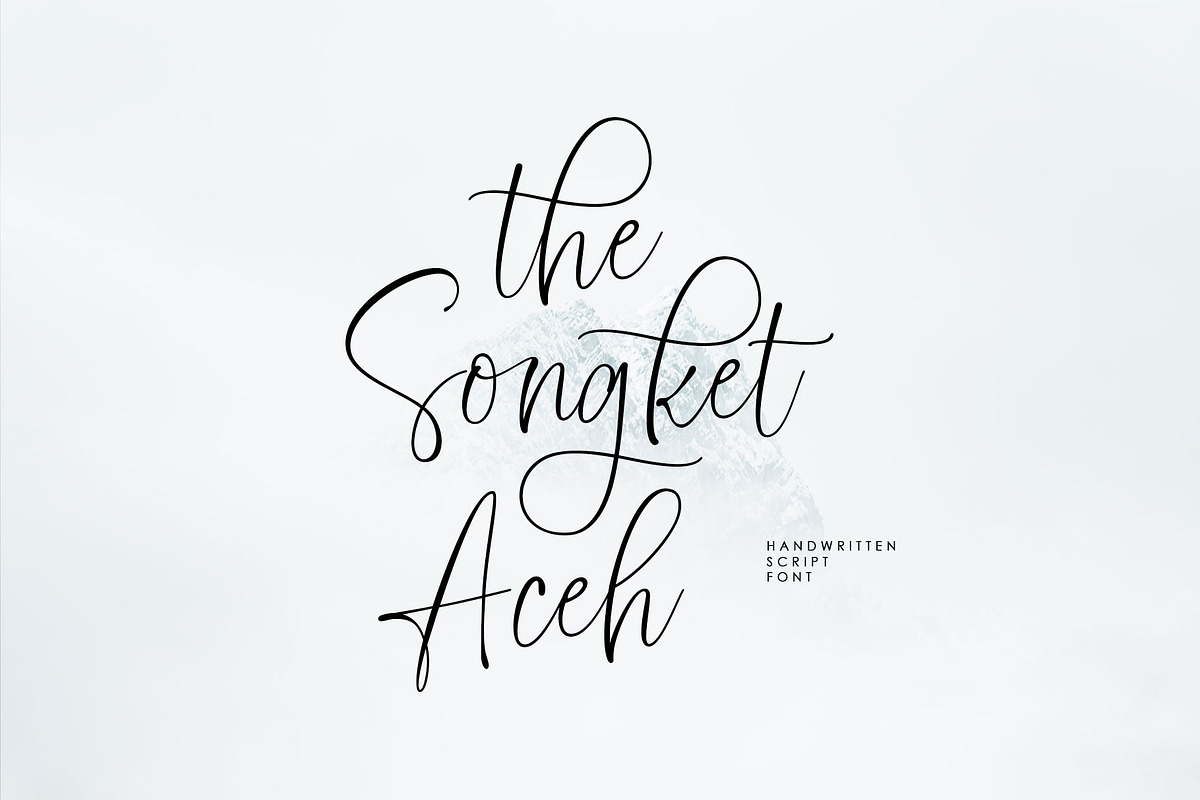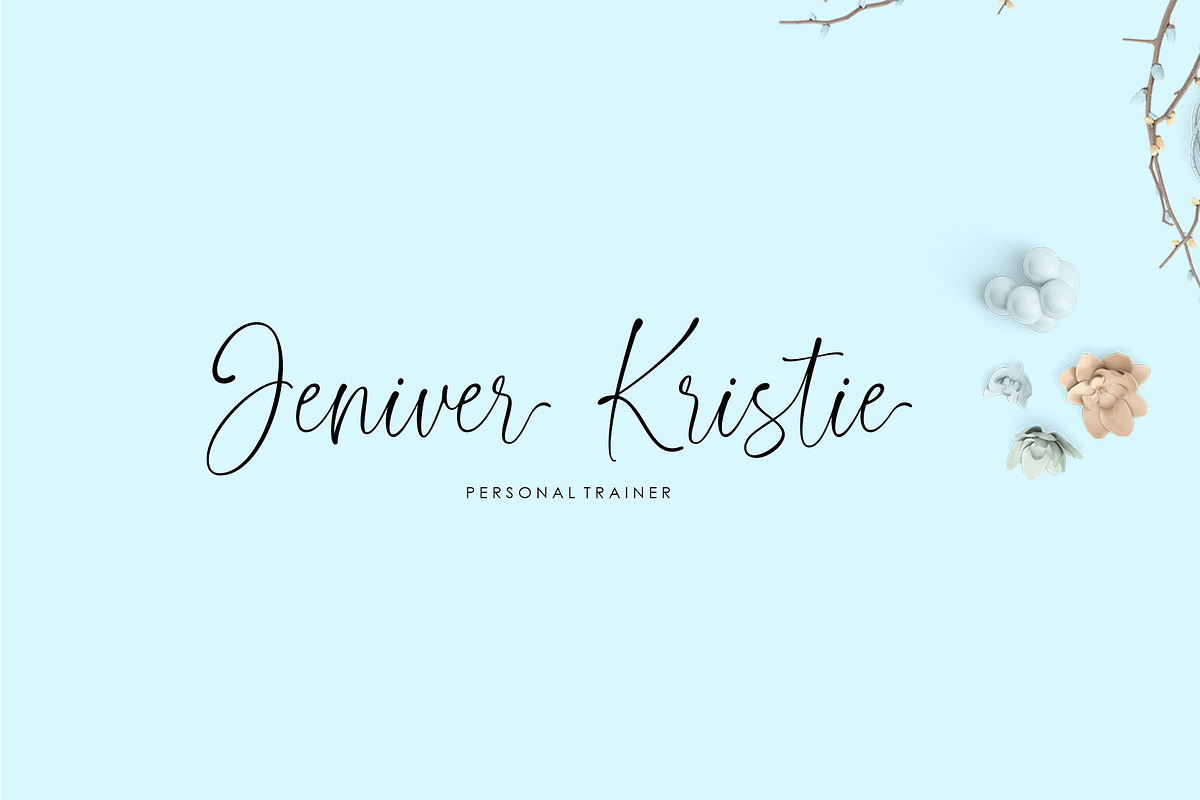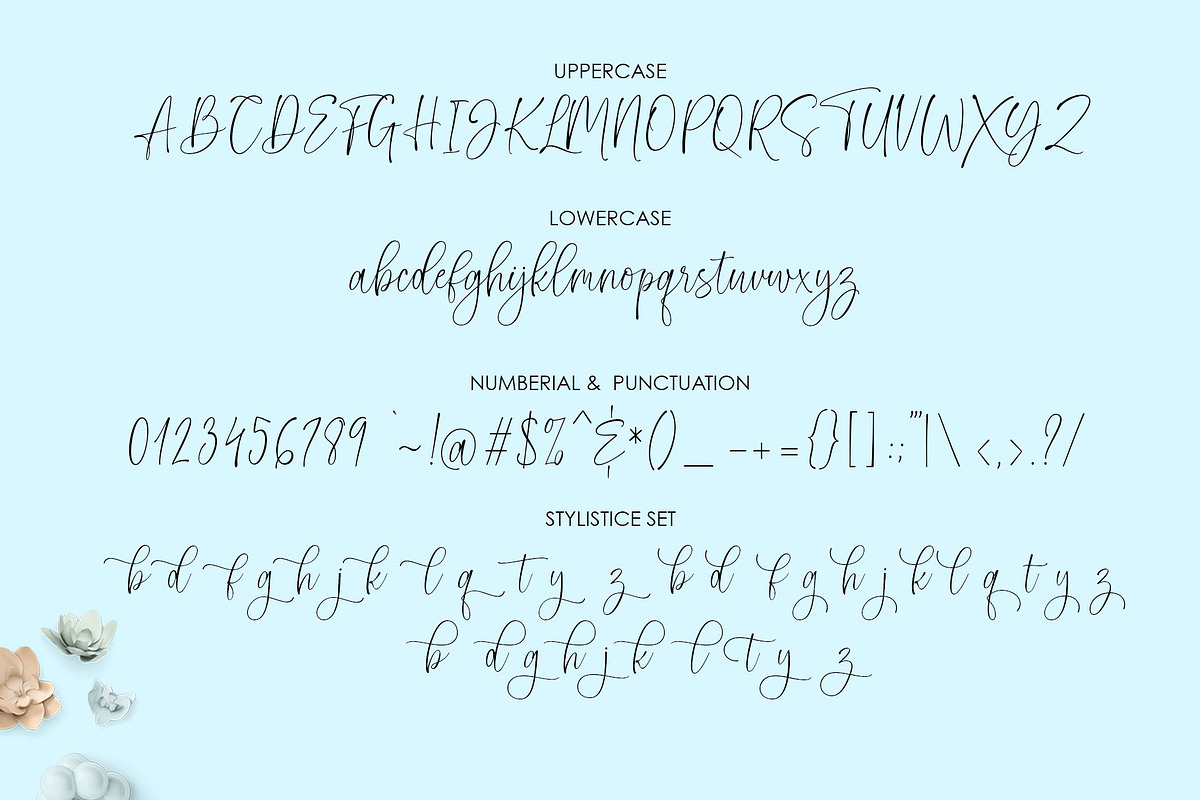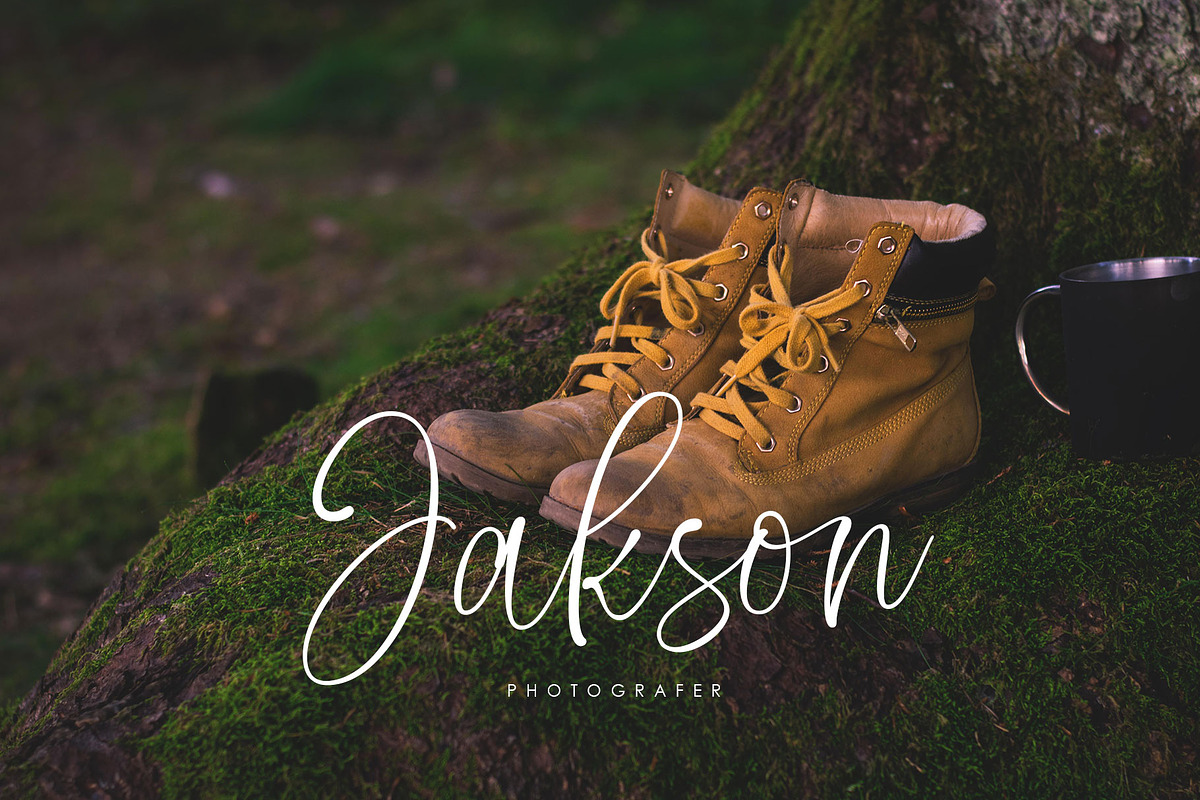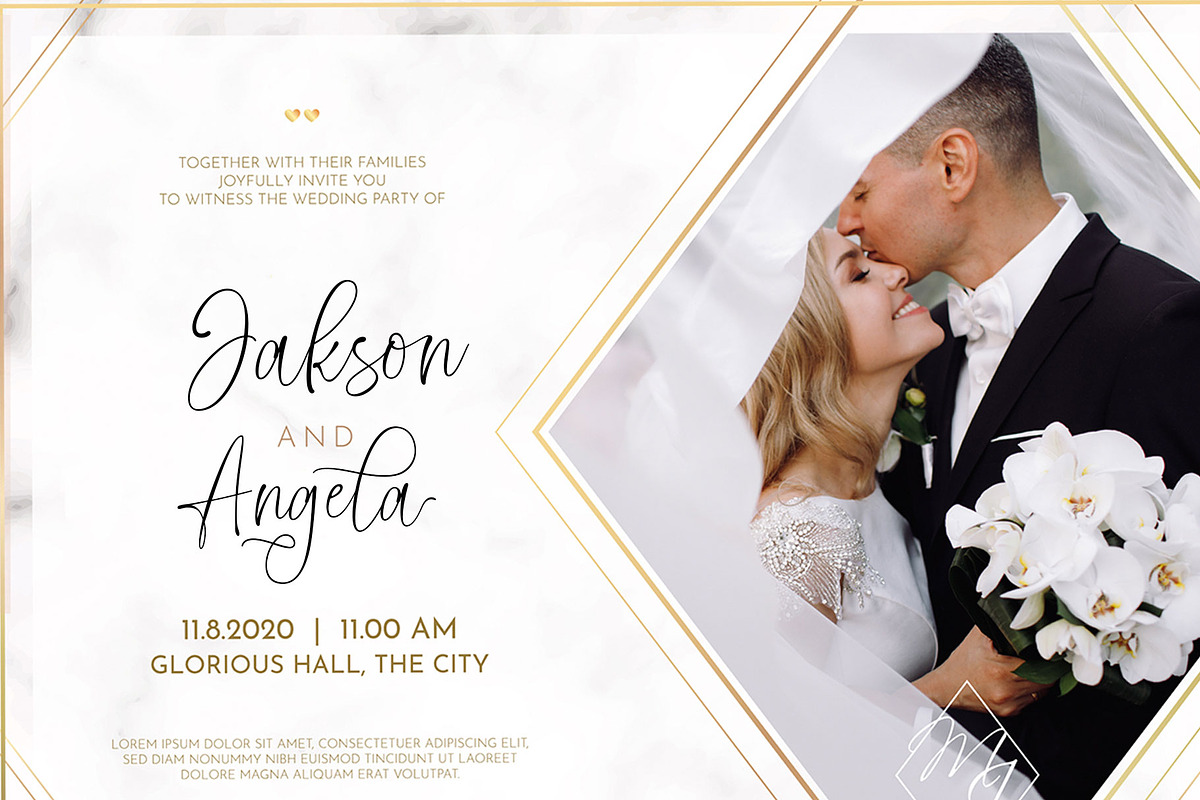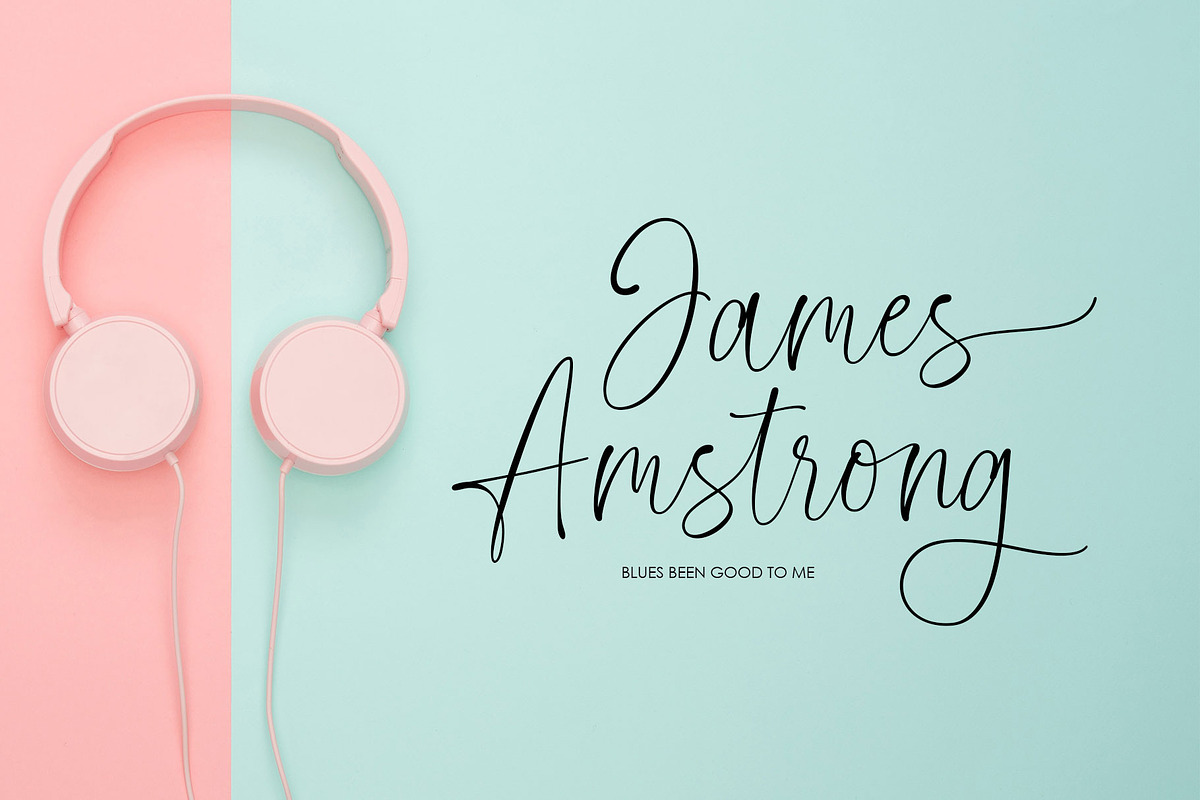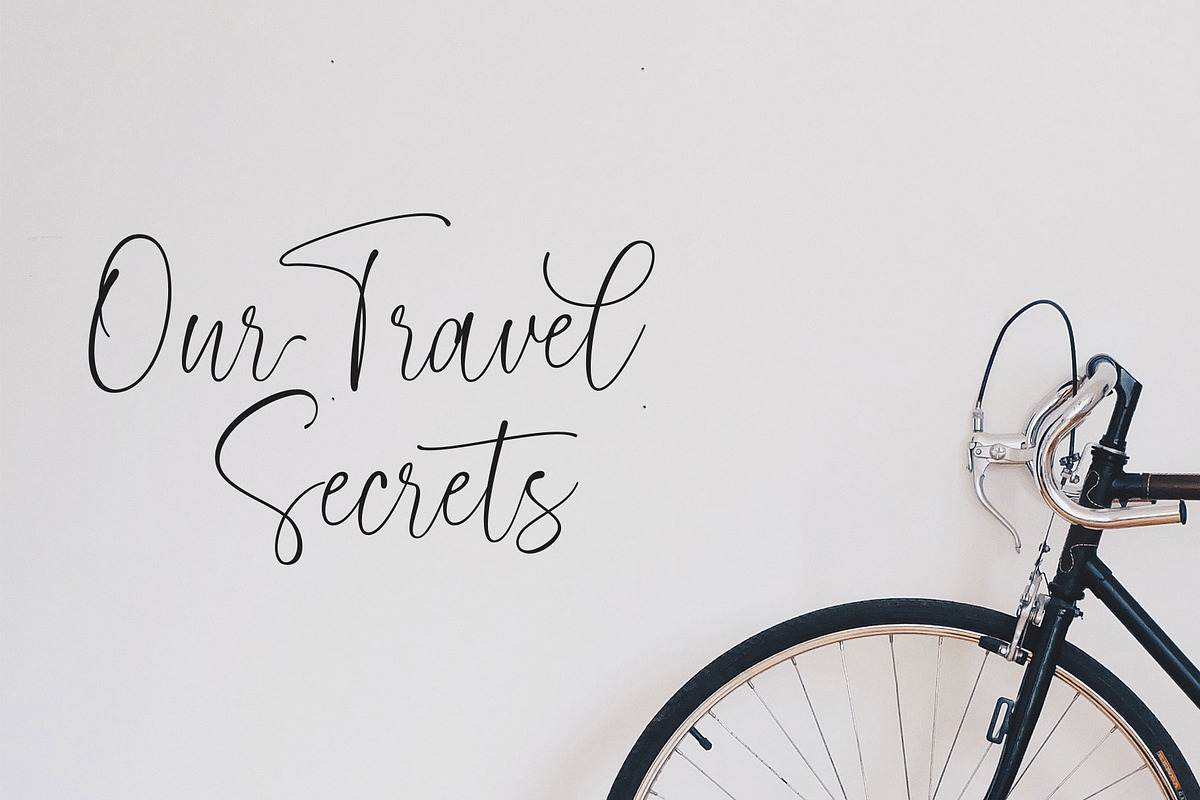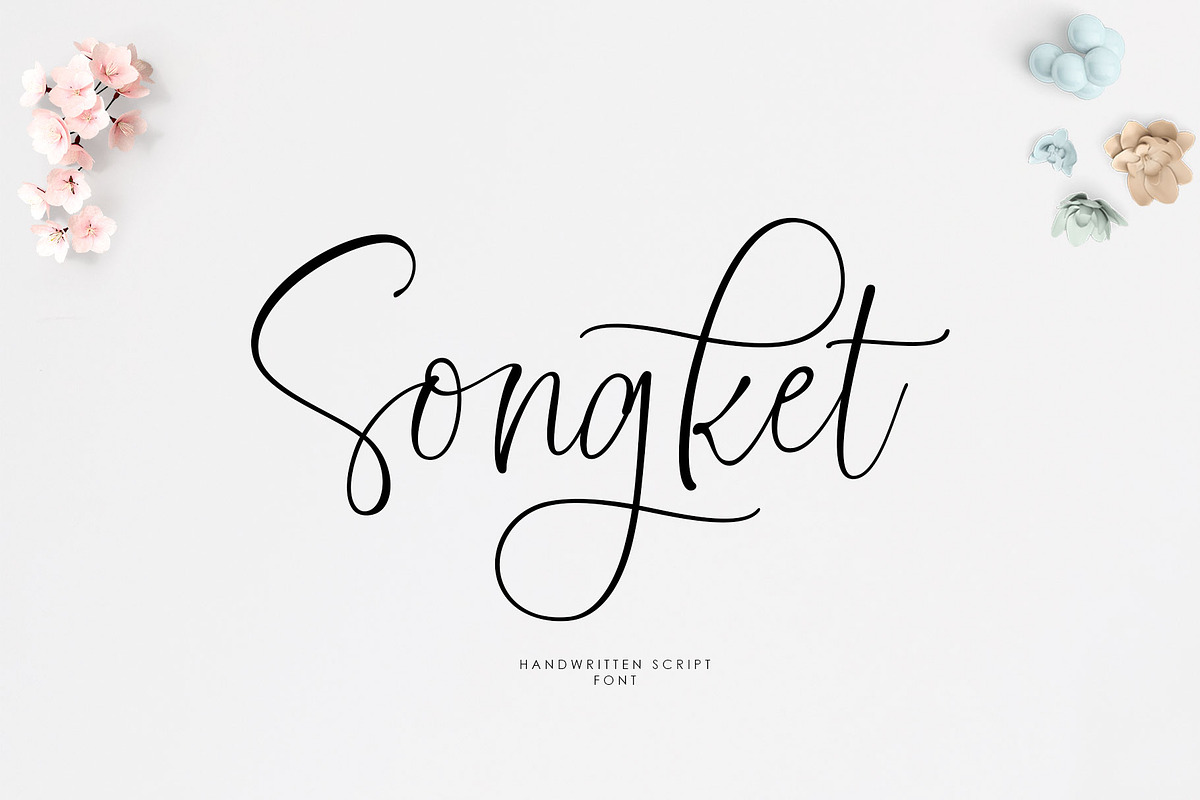
Songket Handwritten Script
Songket Scritp is a modern handwriting caligraphy, has its own distinctive features with a feminine style. It is perfect for invitations, signatures, blogs, social media, business cards, product brands and more. also comes with some ligatures, Initial and stylistice sets.